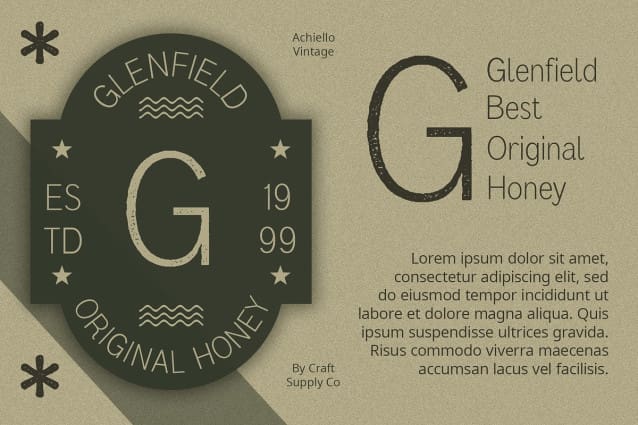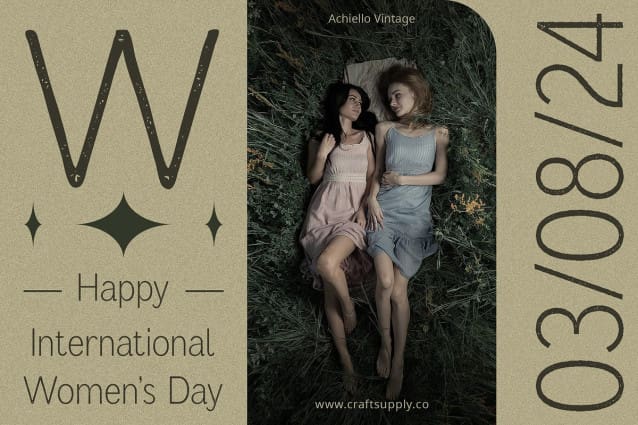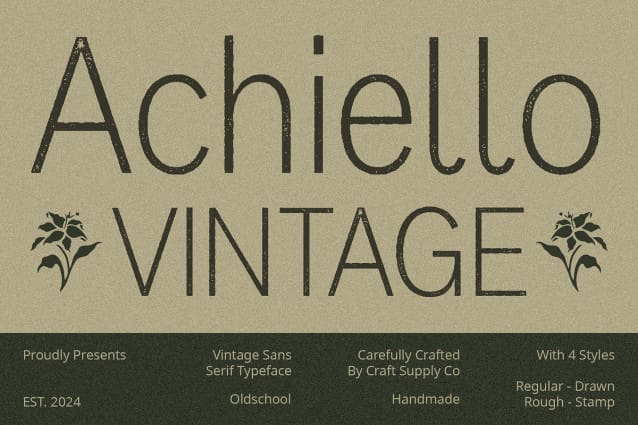
Achiello Vintage Font
Achiello Vintage Font: Bridging Professionalism and Vintage Appeal. Formal Sans Serif Design Achiello Vintage boasts a formal sans serif design that aligns perfectly with corporate design styles. Its clean lines and balanced proportions exude professionalism and sophistication.
Vintage Effect Infused with a vintage effect, this font takes on the appearance of a stamp, drawn, and rough texture. This adds a nostalgic charm and a touch of authenticity to any project.
Ideal for Corporate Design With its formal sans serif design and vintage effect, This font is ideal for corporate design needs. It complements professional branding, presentations, and other corporate materials with ease.
Versatile Application Despite its vintage appeal, This font is versatile in its application. It can be used across various media, including digital and print, for logos, headlines, signage, and more.
Where Professionalism Meets Vintage Charm This font strikes a perfect balance between professionalism and vintage allure, making it a valuable asset for corporate designers seeking to add a nostalgic touch to their projects. With its clean lines and vintage effect, it delivers timeless elegance and sophistication to any design endeavor.